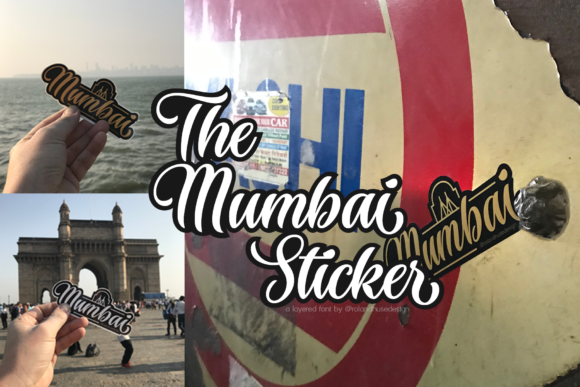
Welcome to the realm of typography, where The Mumbai Sticker Font reigns supreme. This distinct script font family, masterfully crafted by Roland Hüse Design, is a game-changer in the world of design. Let its bold and powerful strokes captivate your imagination and transform your creative visions into compelling realities.
The Mumbai Sticker Font is more than just a collection of characters; it's an expression of individuality, a tool to unleash your creativity. Its unique twist on handwritten script will add a touch of charm and personality to your projects, making them stand out from the crowd. Whether you're a designer, a marketer, or simply someone with a passion for creating visually stunning content, this font is your secret weapon.
With The Mumbai Sticker Font, you'll embark on a typographic adventure like never before. Its bold and confident strokes will command attention, while its playful and spontaneous nature will add a touch of whimsy to your designs. Unleash your inner artist and let your creativity soar as you transform your words into works of art.
But why settle for ordinary when you can have extraordinary? The Mumbai Sticker Font is more than just a font; it's an experience. It's an opportunity to elevate your designs, to make them unforgettable, to leave a lasting impression on your audience.
So, why wait? Dive into the world of The Mumbai Sticker Font and unlock a new dimension of creativity. Its bold and powerful presence is waiting to be unleashed, ready to transform your projects into masterpieces. Embrace the power of typography and let The Mumbai Sticker Font be your guide.